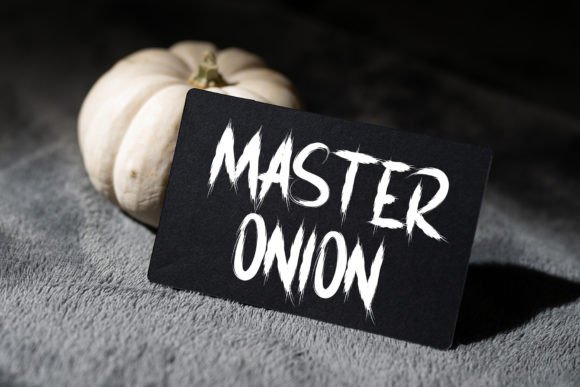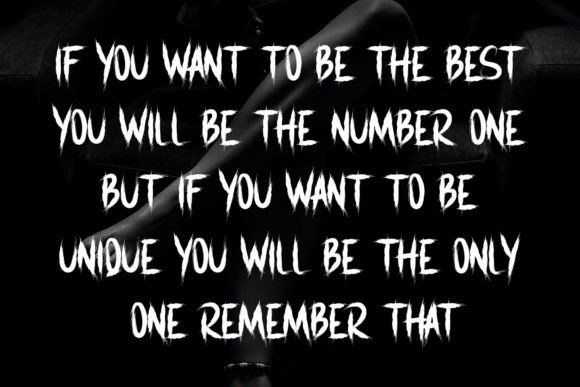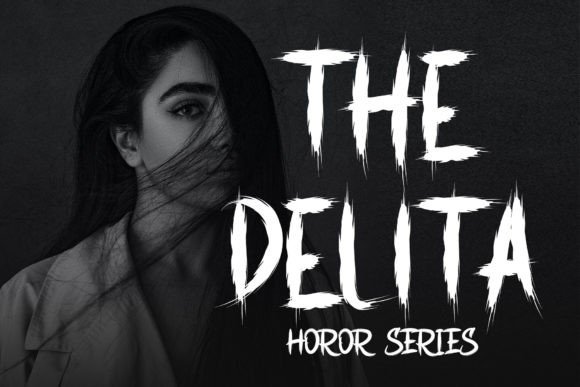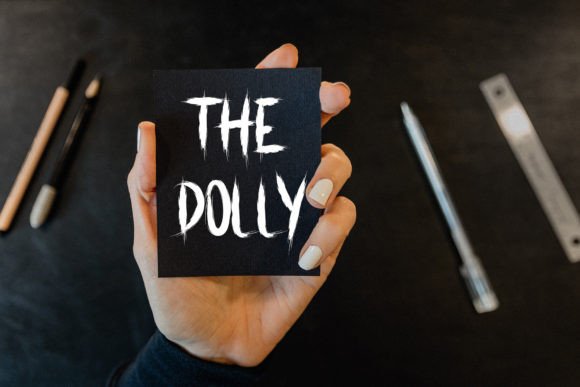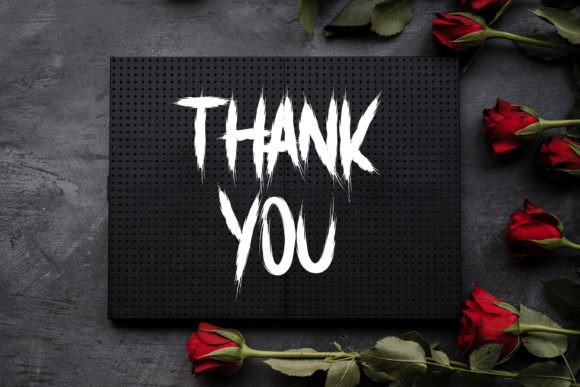
Introducing Blanking Font: The Perfect Addition to Your Typography Collection
Are you a designer, crafter, or DIY enthusiast looking for a unique and beautiful font to elevate your creative projects? Look no further than Blanking Font! This stunning display brush font is perfect for adding a touch of elegance and sophistication to your designs, making it ideal for magazines, crafts, and a wide range of other applications.
What is Blanking Font?
Blanking Font is a carefully crafted display brush font that boasts a distinctive, hand-brushed look. Its unique charm and character make it perfect for designers and crafters who want to add a personal touch to their work. Whether you’re creating a magazine layout, a craft project, or a social media graphic, Blanking Font is sure to make your design stand out from the crowd.
Key Features of Blanking Font
- Beautiful Display Brush Font: Blanking Font features a stunning, hand-brushed design that adds a touch of elegance to any project.
- Perfect for Magazines and Crafts: Its unique charm and character make it ideal for use in magazines, crafts, and a wide range of other applications.
- Easily Readable: Despite its decorative nature, Blanking Font is surprisingly easy to read, making it perfect for use in body text as well as headlines.
- Highly Versatile: Blanking Font can be used in a wide range of design applications, from digital graphics to print materials.
Why Choose Blanking Font?
So why should you choose Blanking Font for your next design project? Here are just a few compelling reasons:
- Adds a Touch of Elegance: Blanking Font’s unique, hand-brushed design adds a touch of elegance and sophistication to any project.
- Stand Out from the Crowd: With its distinctive look and feel, Blanking Font is sure to make your design stand out from the crowd.
- High-Quality Design: Blanking Font is a high-quality design that’s perfect for use in professional design projects.
In conclusion, Blanking Font is a beautiful display brush font that’s perfect for designers, crafters, and DIY enthusiasts. Its unique charm and character make it ideal for use in magazines, crafts, and a wide range of other applications. With its ease of use, high-quality design, and versatility, Blanking Font is sure to become a valuable addition to your font library.